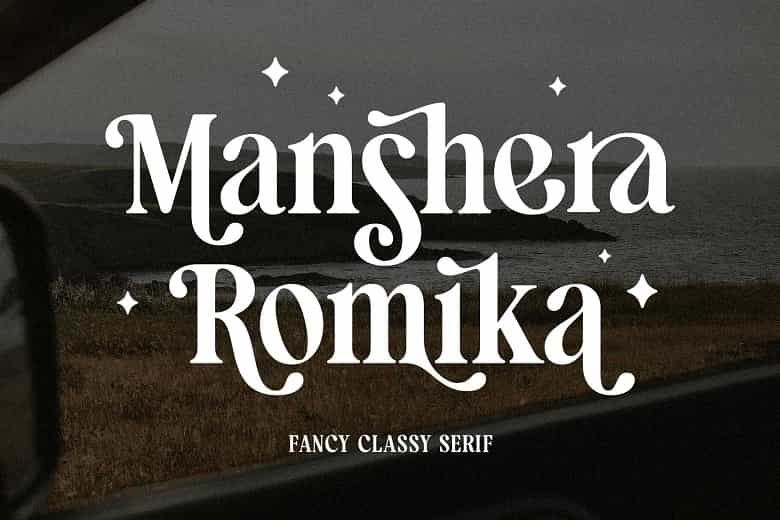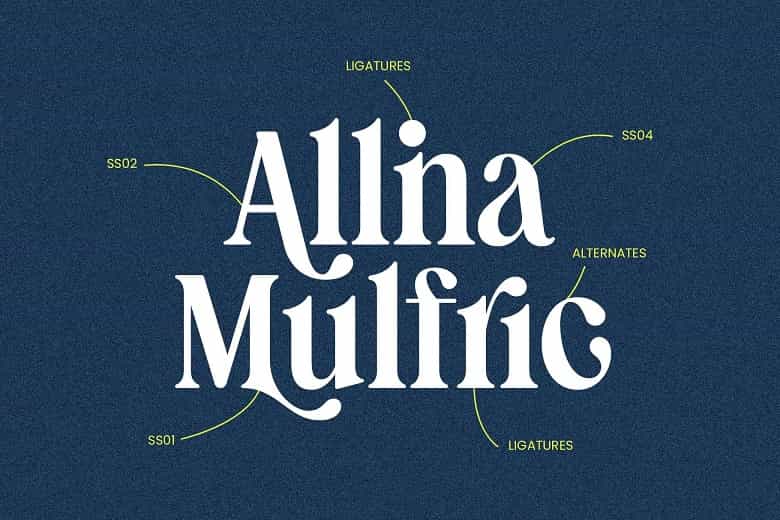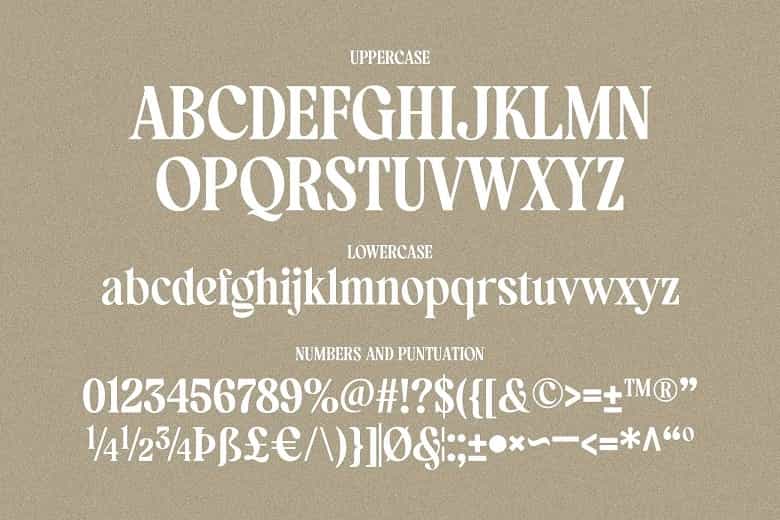
Manshera Romika is a contemporary elegant fancy serif typeface. A true piece of art with many special characters that lead to the modern-vintage appearance with a hot and thick shape. This font gives a rather stylish look, ideal for a minimalist design, elegance, and positivity. We have 500+ Glyphs for your design project needs!